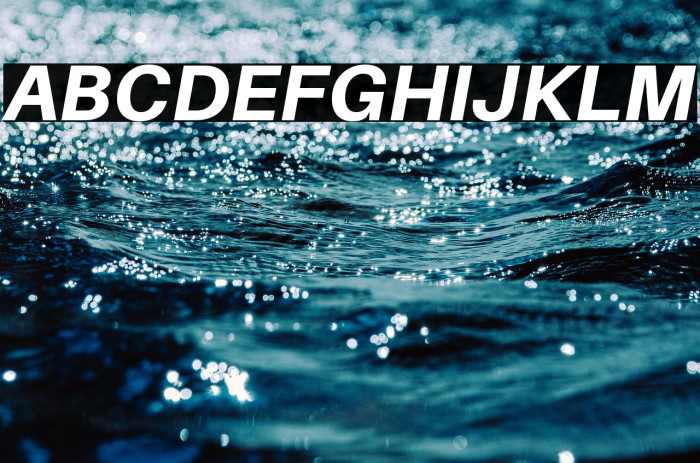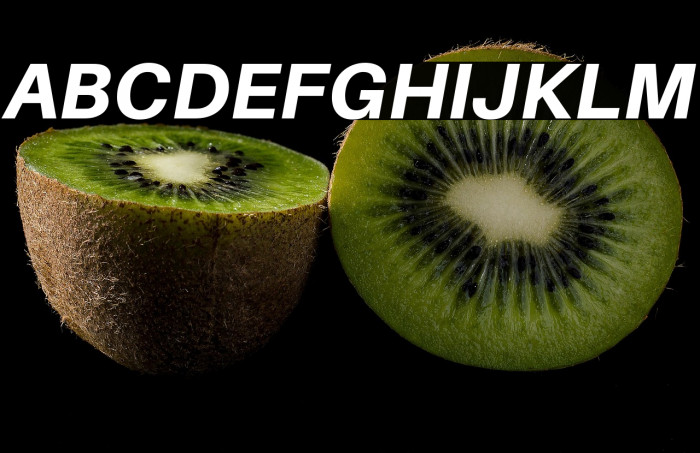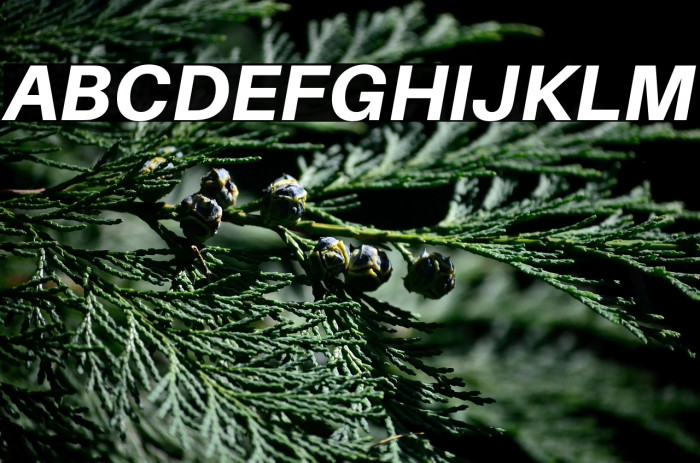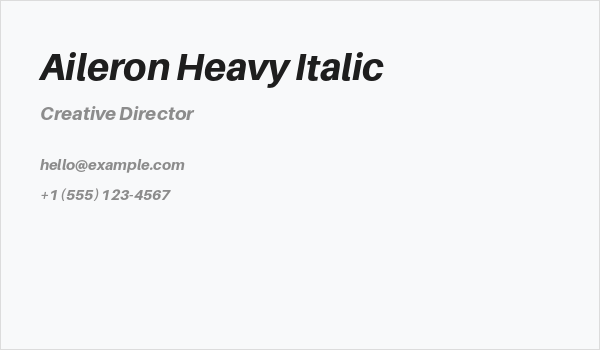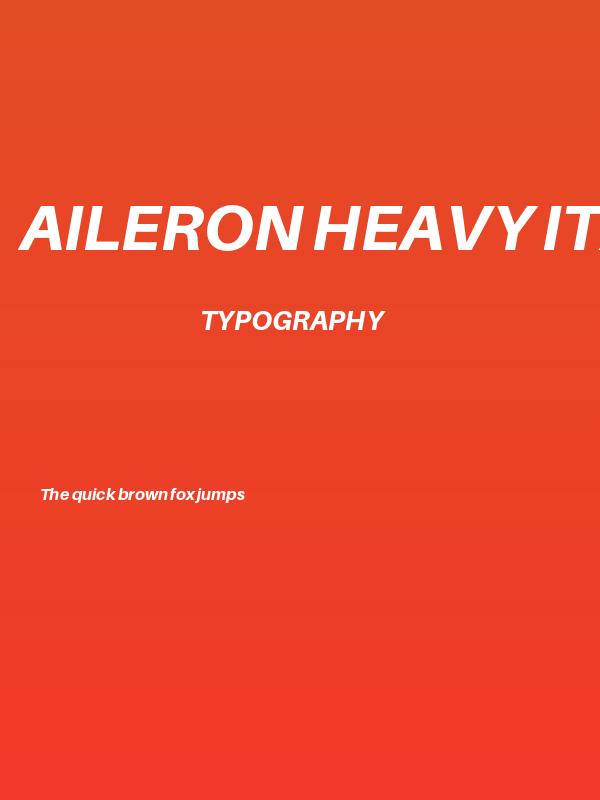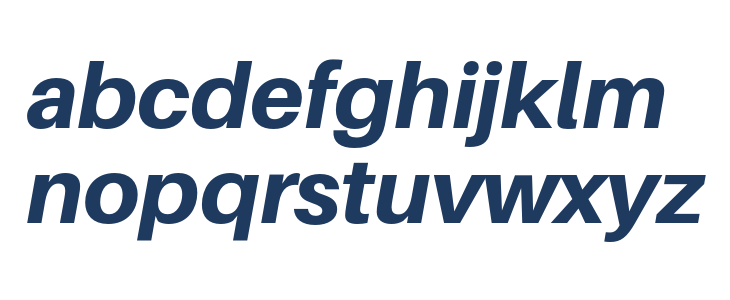
Aileron Heavy Italic Font
Aileron Heavy Italic Description
This typeface features a bold and dynamic style with a strong italic slant, giving it a sense of motion and urgency. The characters are well-defined with a uniform stroke weight, providing a clean and modern appearance. The uppercase letters are robust and commanding, while the lowercase letters maintain a consistent flow. Numerals are clear and easily distinguishable, making them suitable for a variety of applications. The special characters are well-integrated, ensuring versatility in design projects.
| Use Case | Headlines, Logos, Advertising |
| Proposed Projects | Ideal for branding, advertising, headlines, and any project requiring a strong visual impact. |